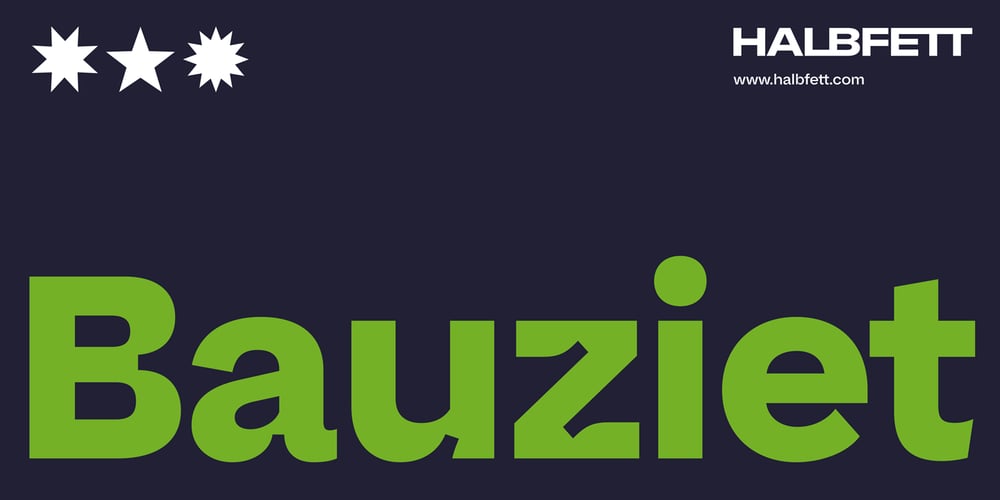
Bauziet Font Family was designed by Deni Anggara and published by Halbfett. Bauziet contains 12 styles and family package options. Bauziet is a modern grotesk available in 12 styles with variable support. The weight range of Bauziet is significant due to its most distinctive design element: the prominent ink traps. As the Bauziet weight increases, these ink traps become more pronounced. This aspect makes Bauziet an excellent resource for designers to explore, as its substantial ink traps can swiftly evolve into an iconic feature within a branding system.